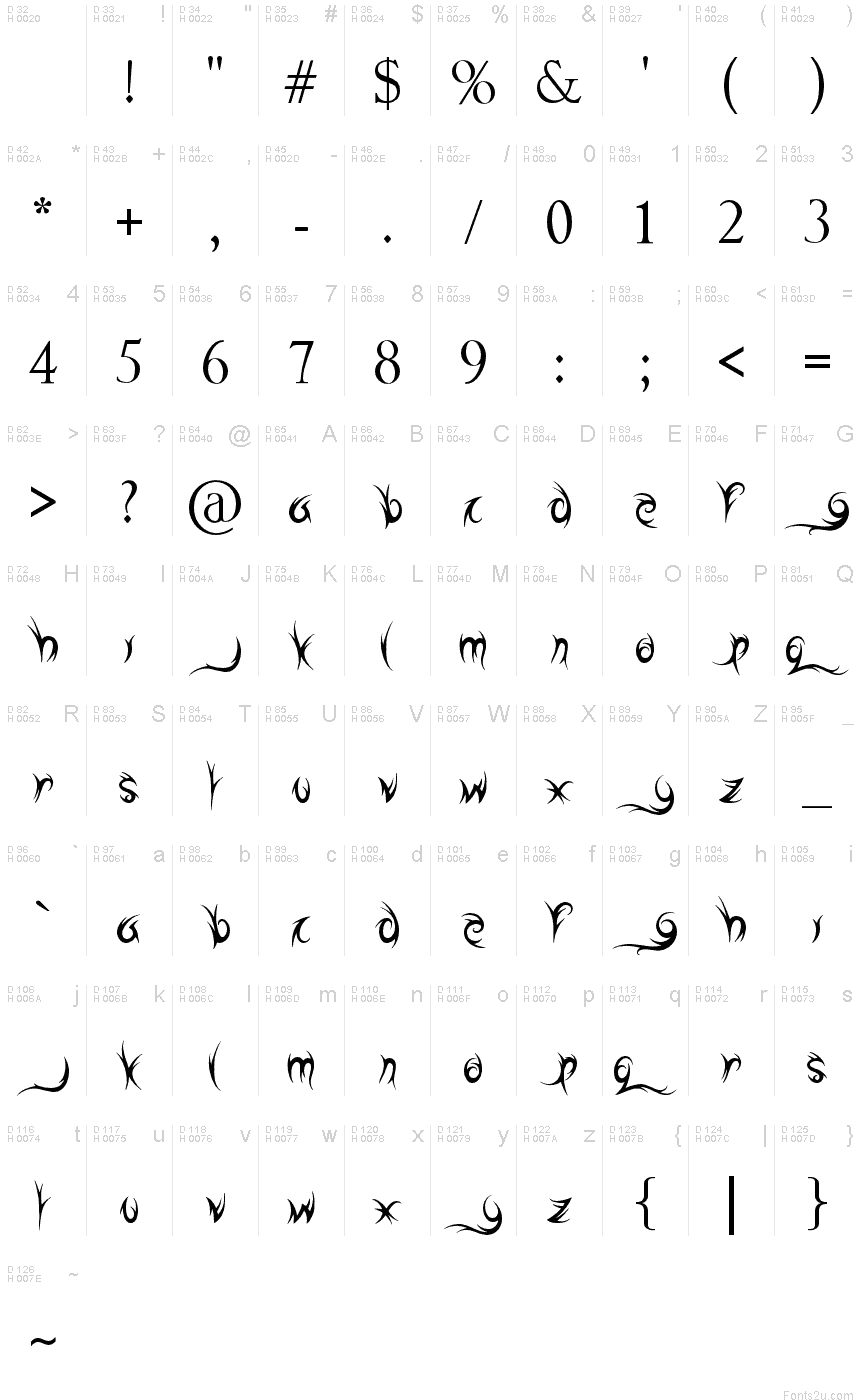
highway to hell
Highway to Hell from TattooWoo.com is a free futuristic display font shaped by thorny curves and tattoo-inspired ornament. Its letters shift between broad strokes and hairline points, with hooked extensions and dramatic loops creating a restless, flame-like silhouette.
Used as a theatrical title, it can turn horror posters and metal album covers into part of the artwork rather than simple labeling. The same sharp, unruly forms suit tattoo studio signage and dark fantasy game graphics, echoing blades, flames, or tribal patterns. For apparel branding or alternative music merchandise, the tangled contours offer a recognizable product identity with an underground edge.